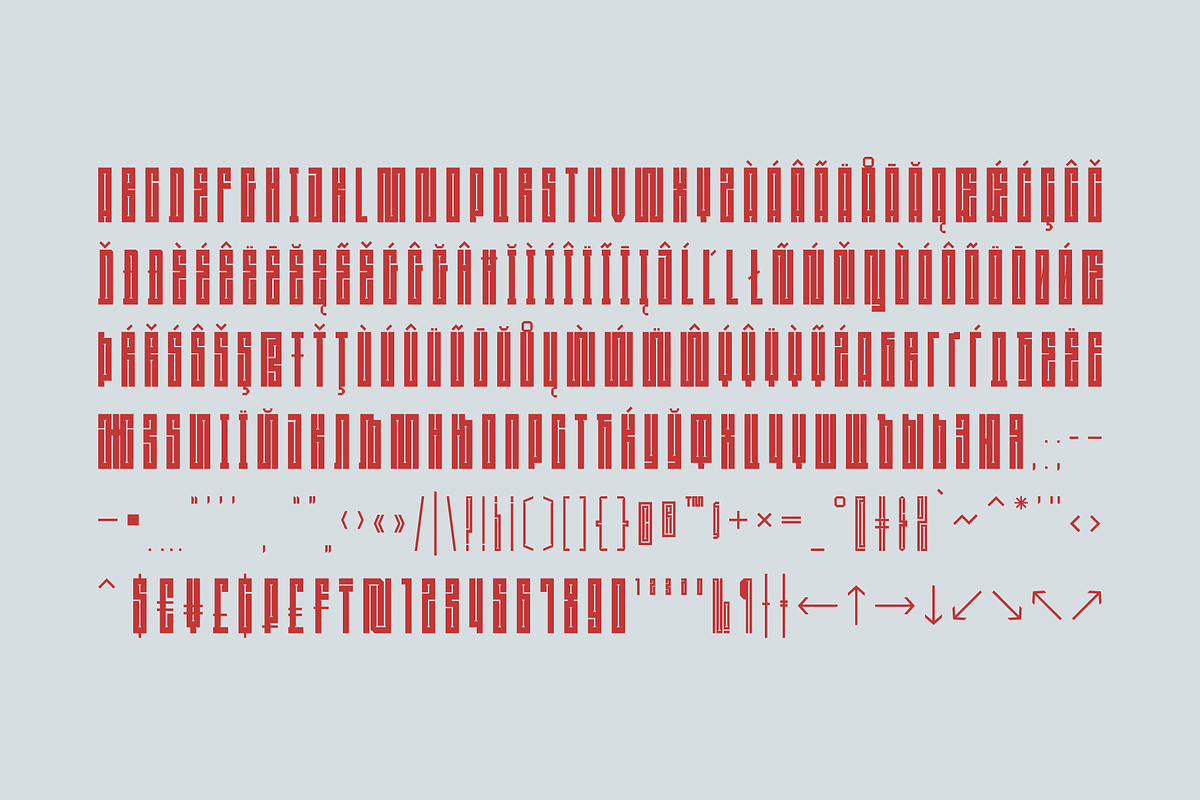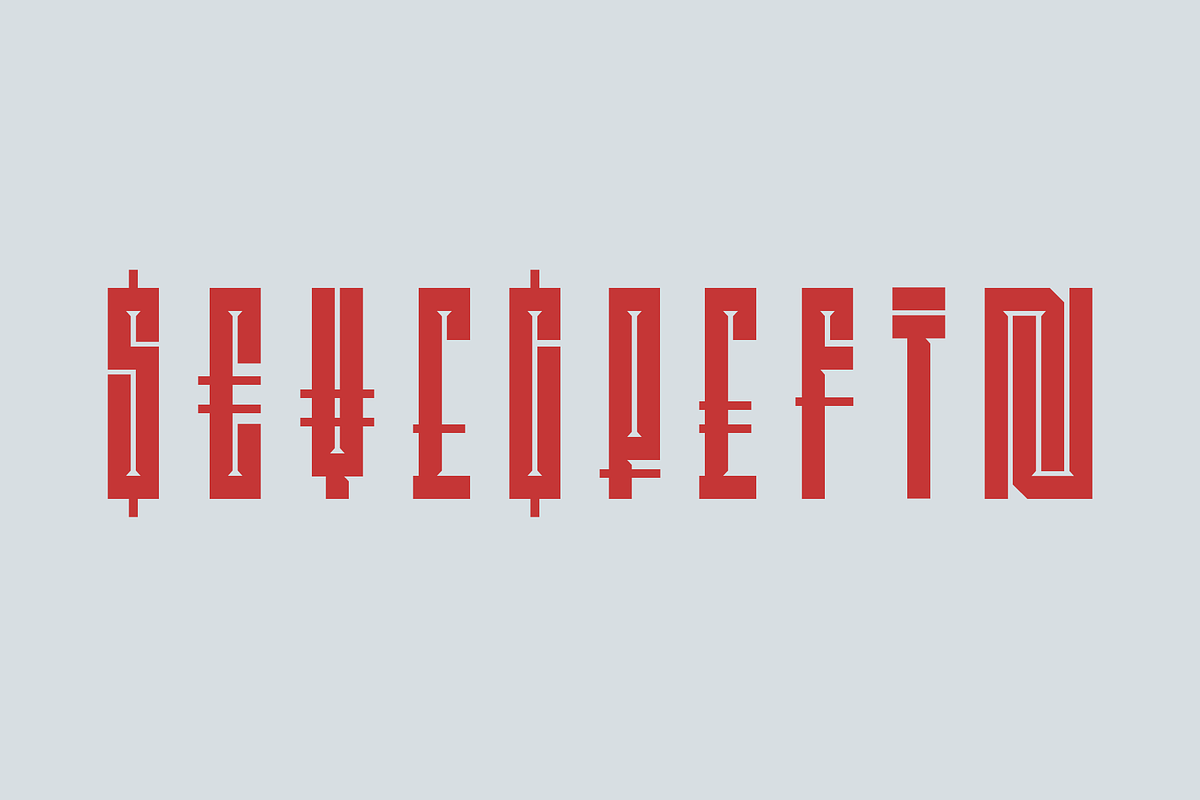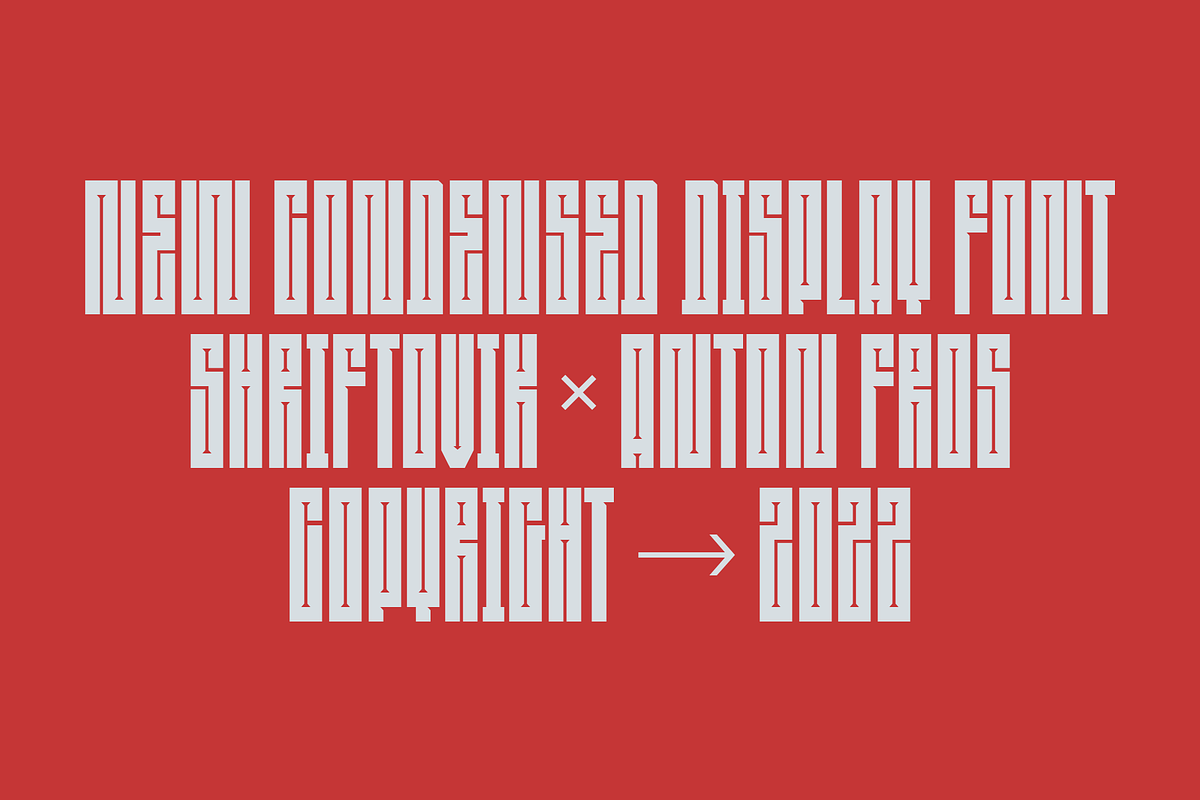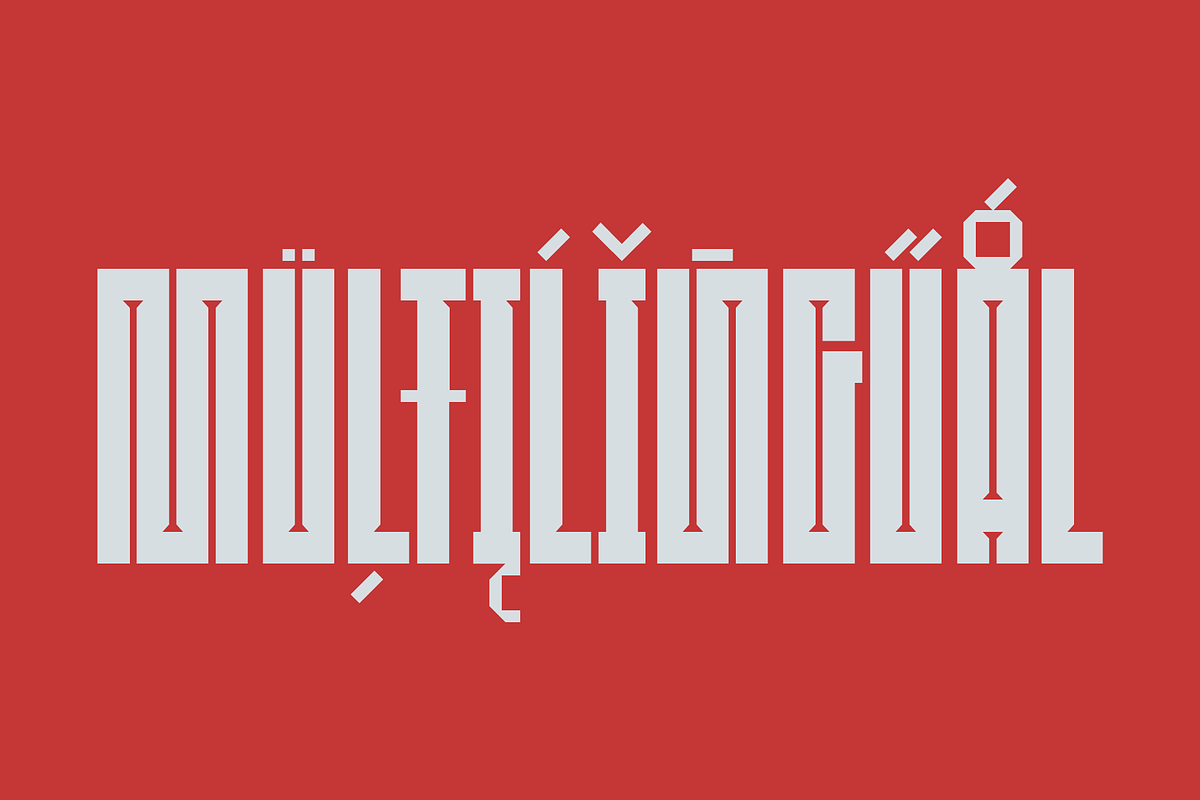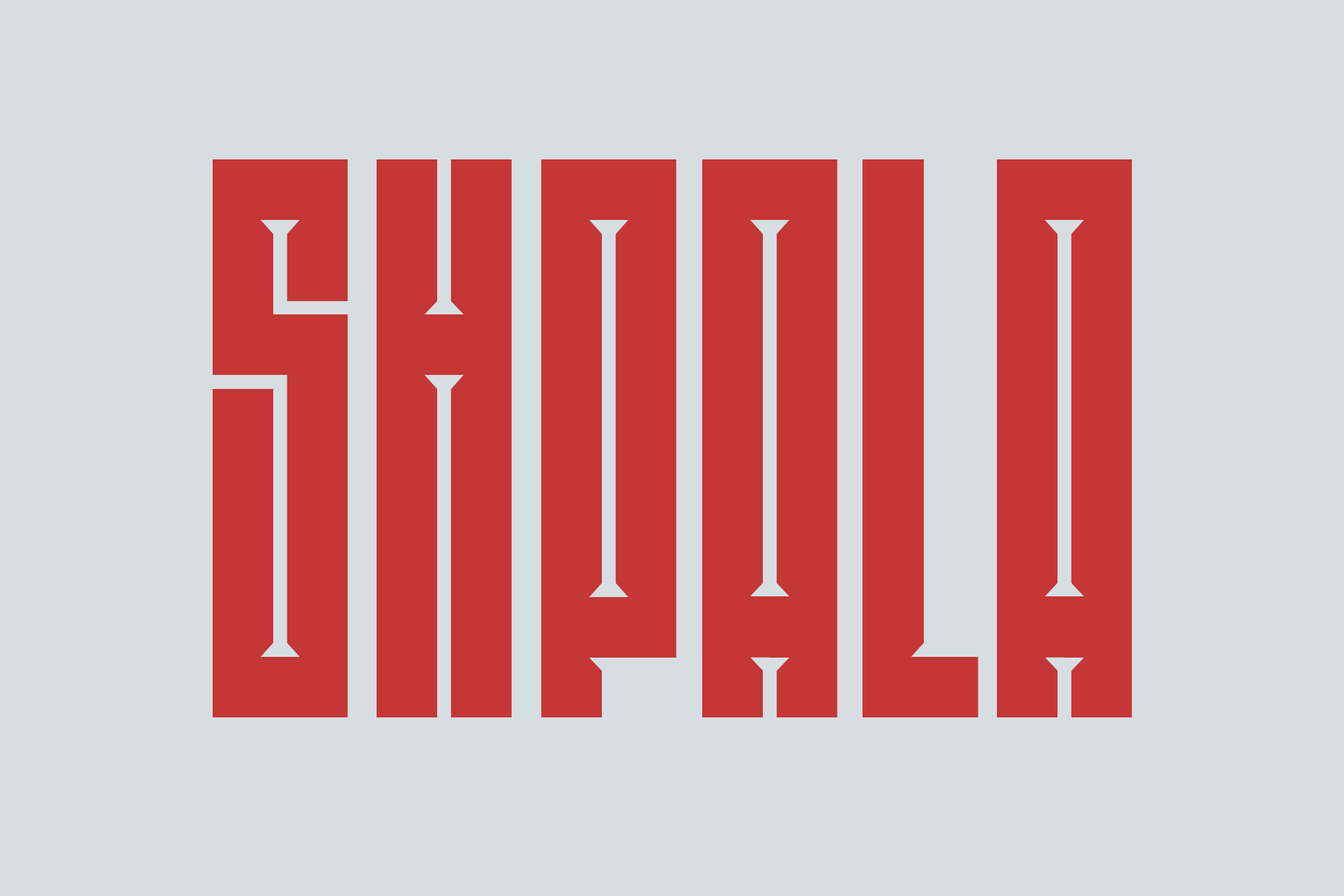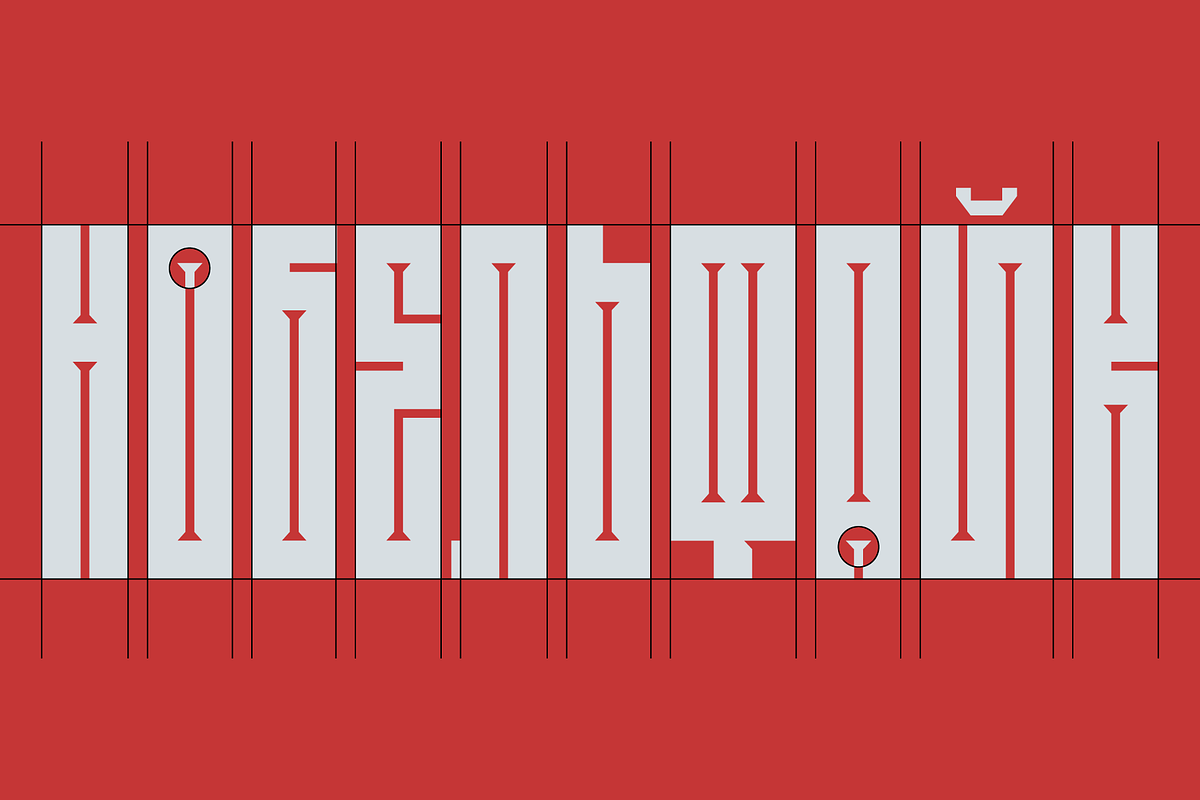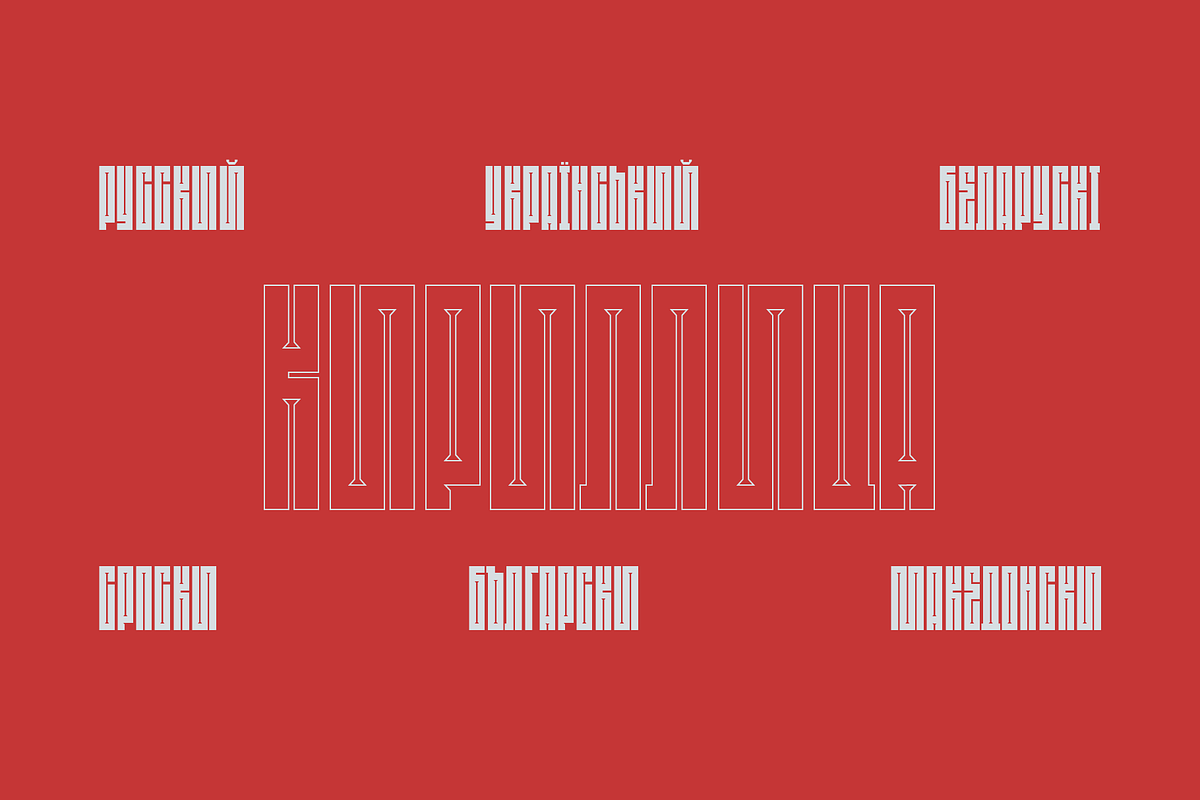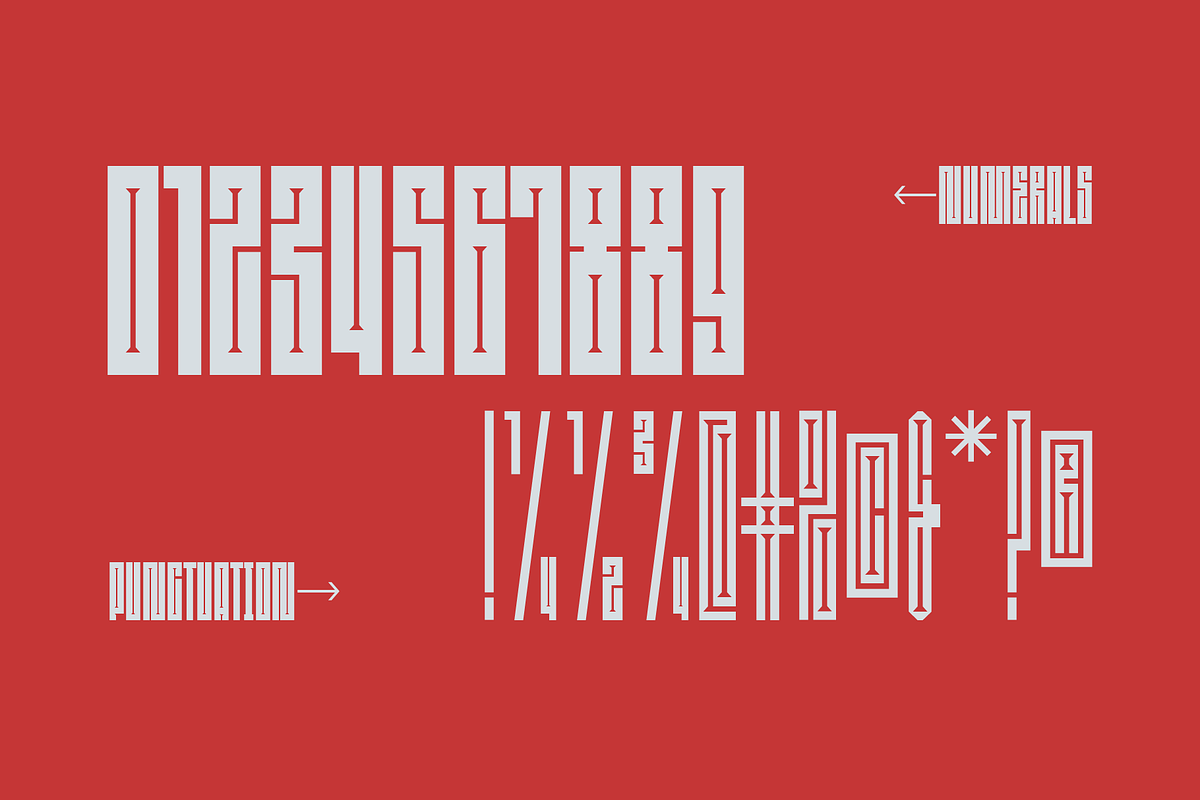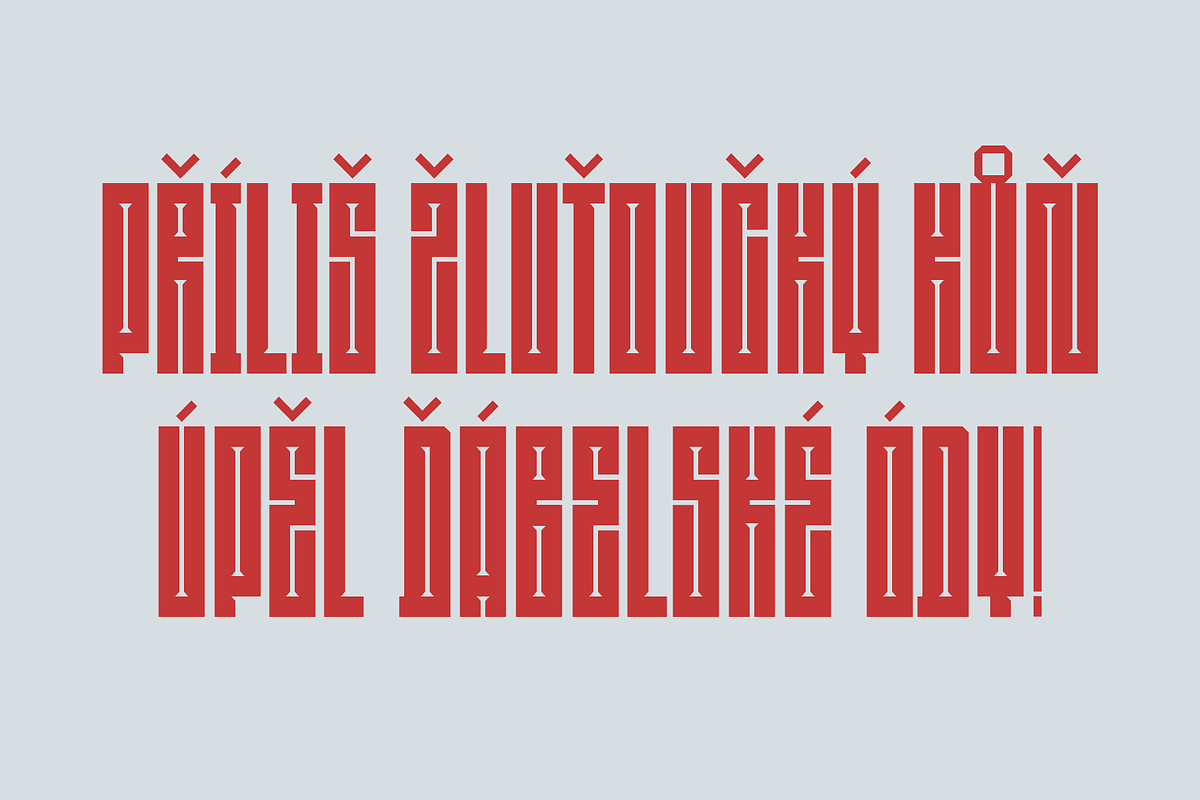
SK Shpala — Geometric Condensed Font
SK Shpala is a modern geometric display typeface inspired by the aesthetics of railways. The typeface is built on a system that includes a combination of wide lines and thin gaps, which creates a unique character pattern. The name of the typeface refers to the railway tie for a reason, as the text typed in this typeface really resembles the railway tracks from above. The typeface is multilingual and supports many languages of both Latin and Cyrillic. Despite the strong decorative component, the SK Shpala typeface is a powerful tool for working with typography and design. The typeface is also perfect for poster design and large headlines.